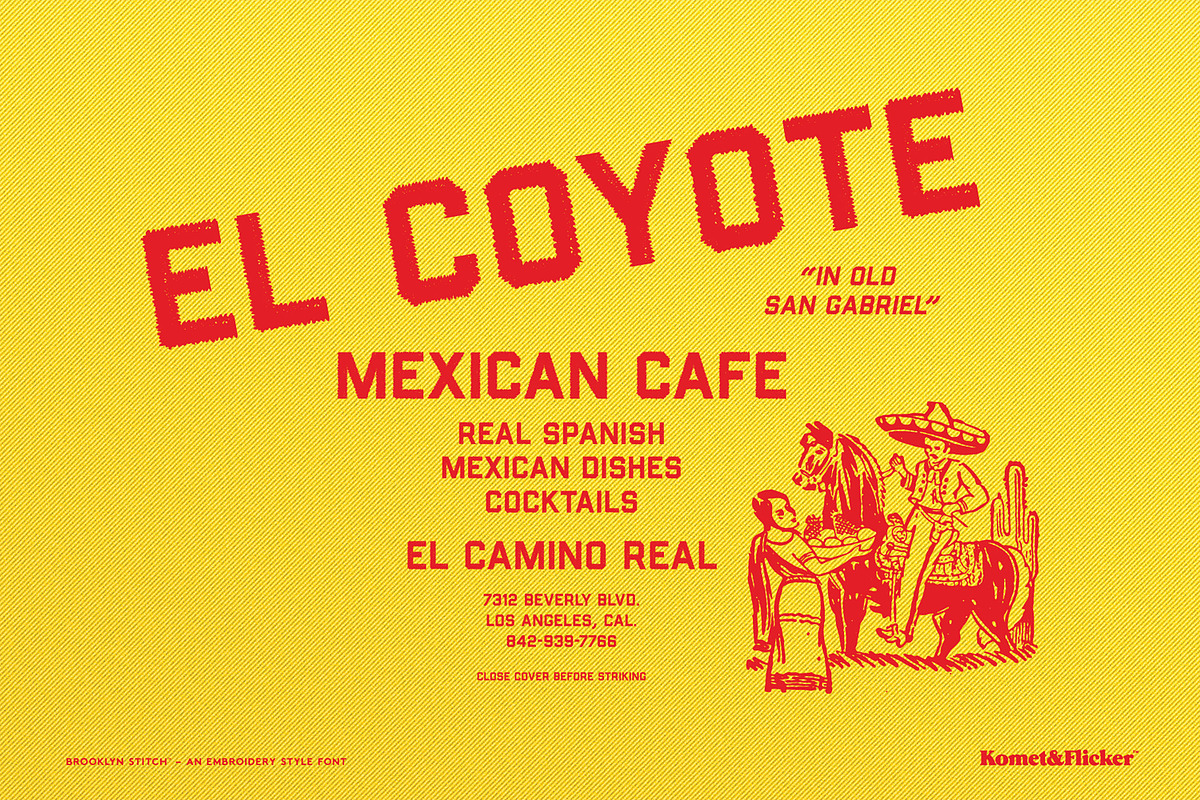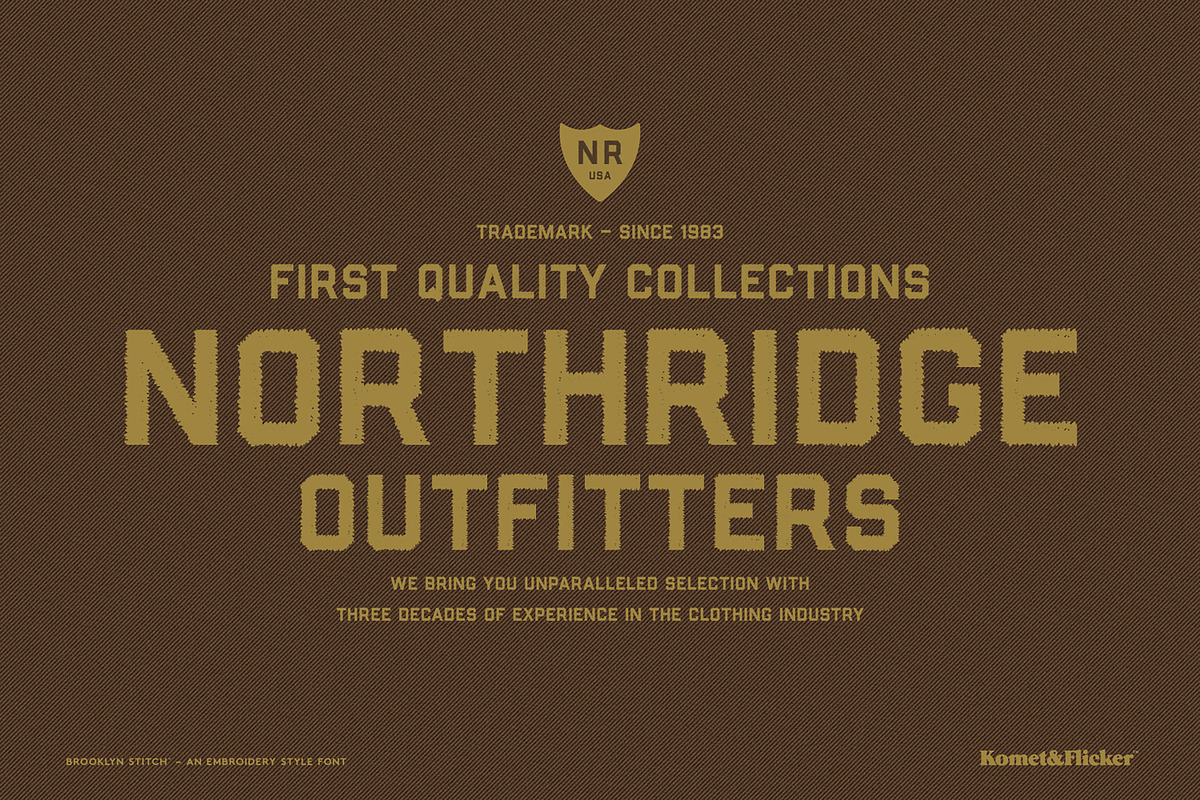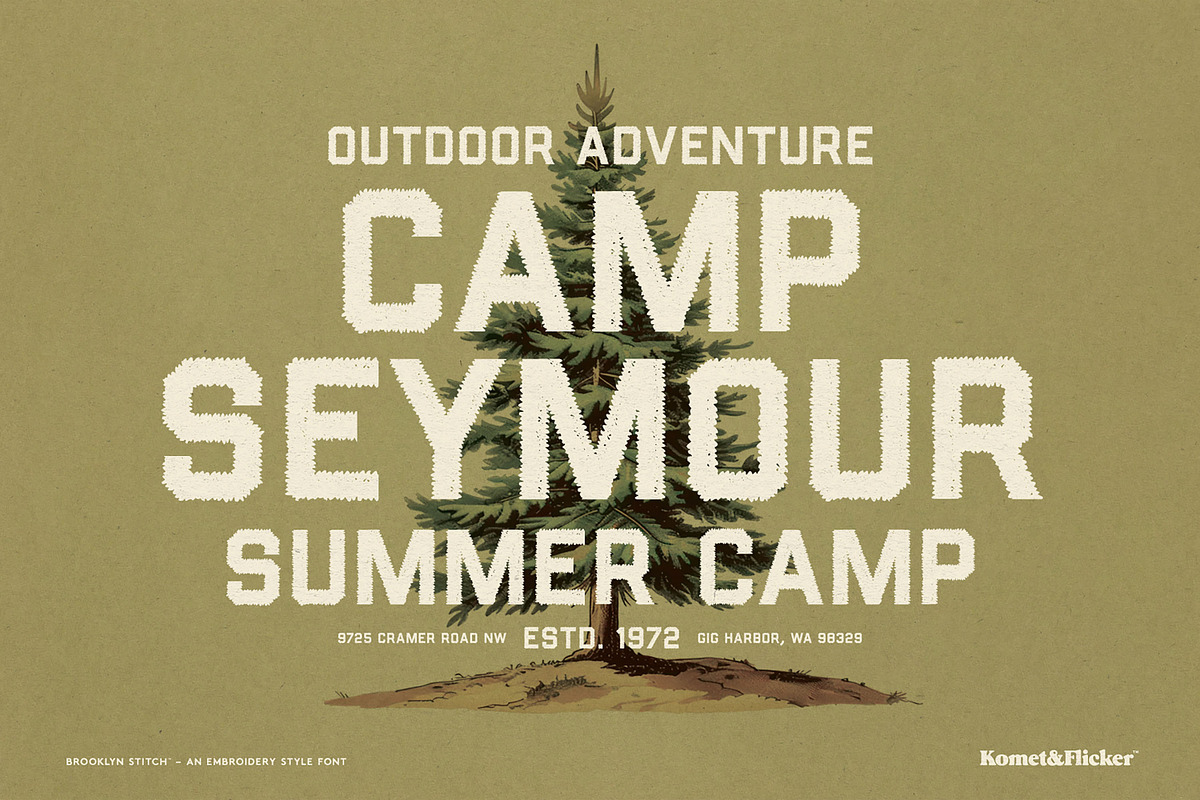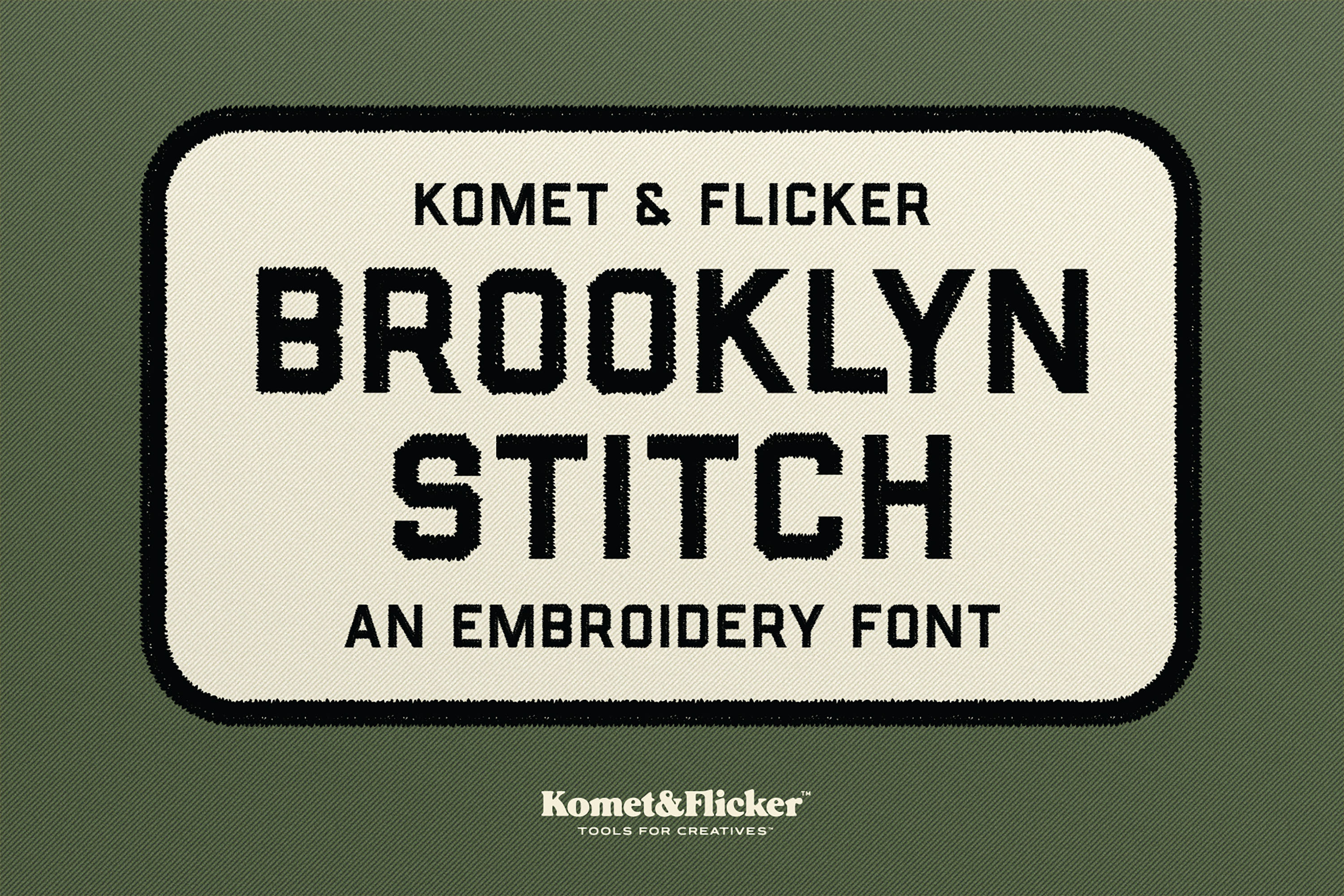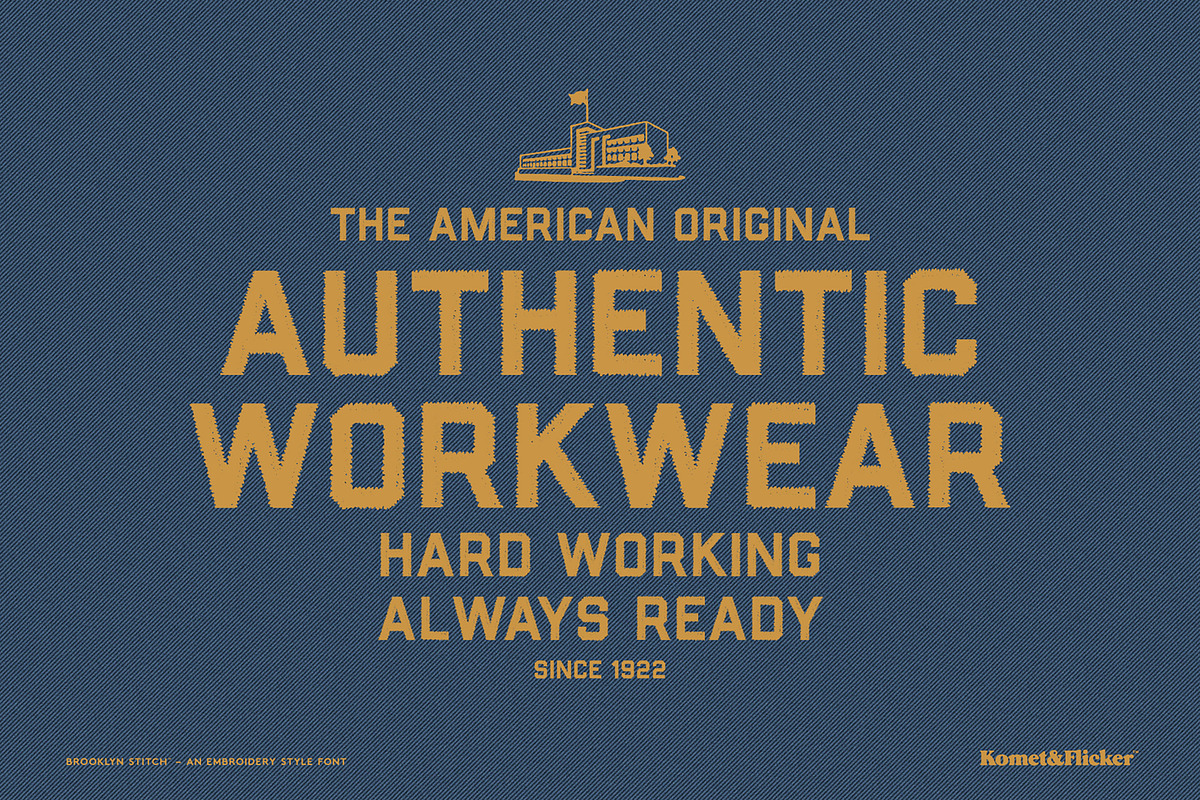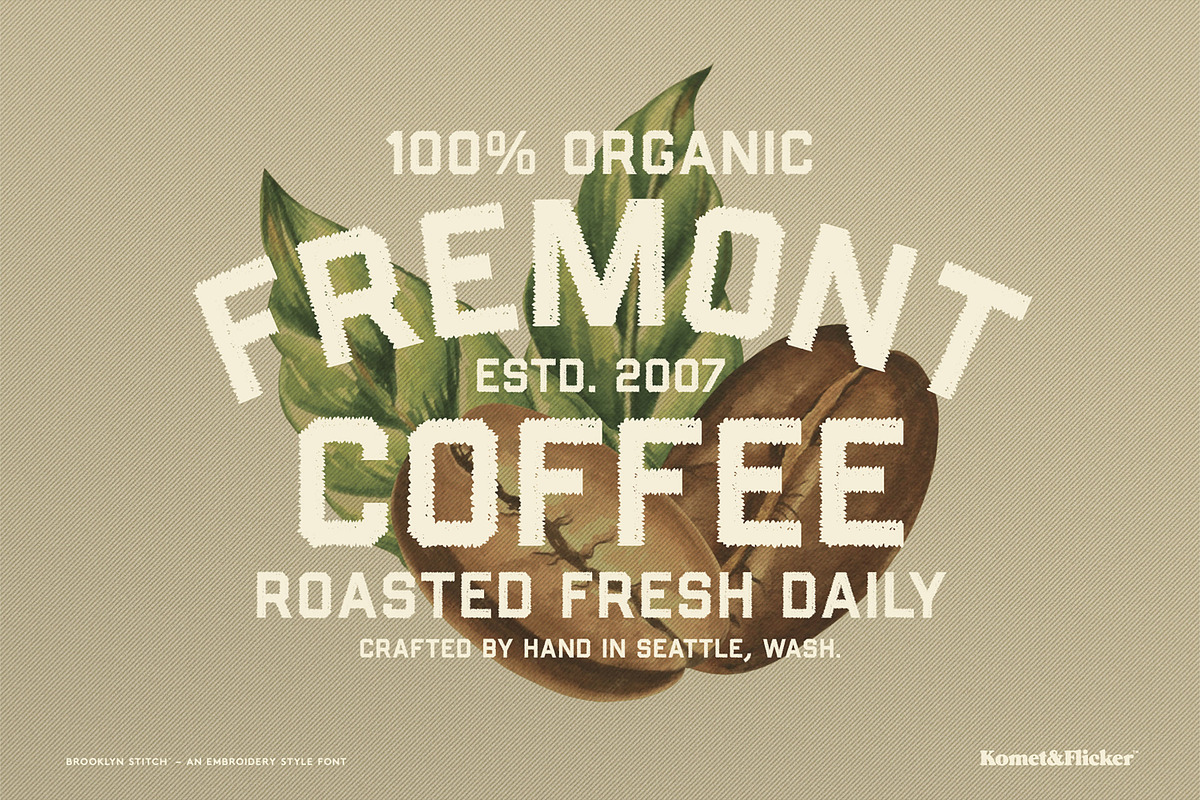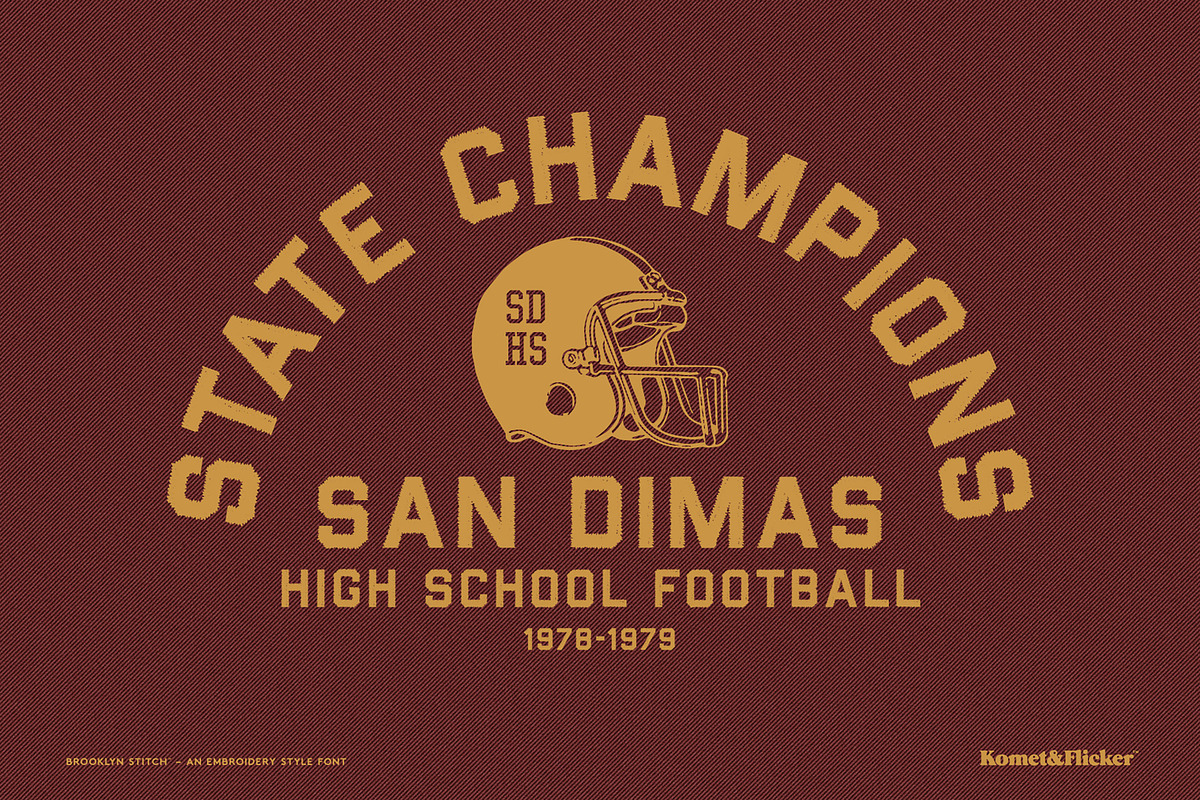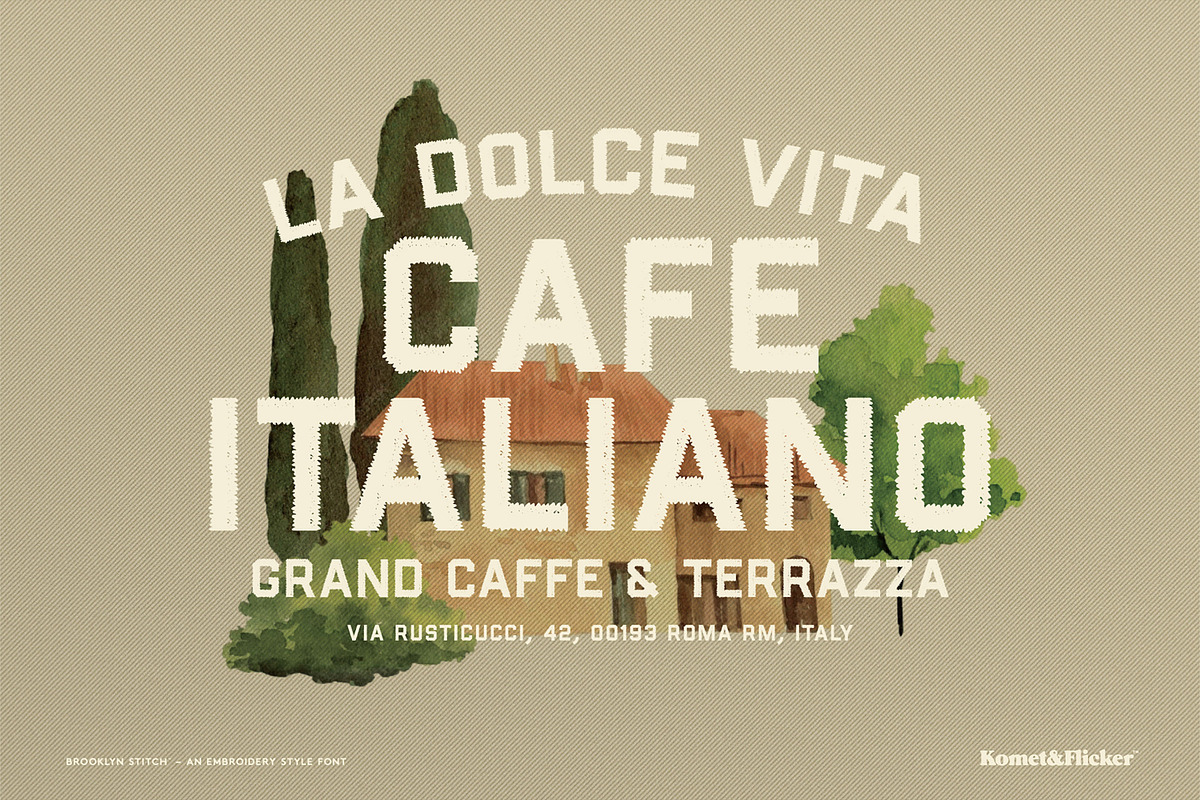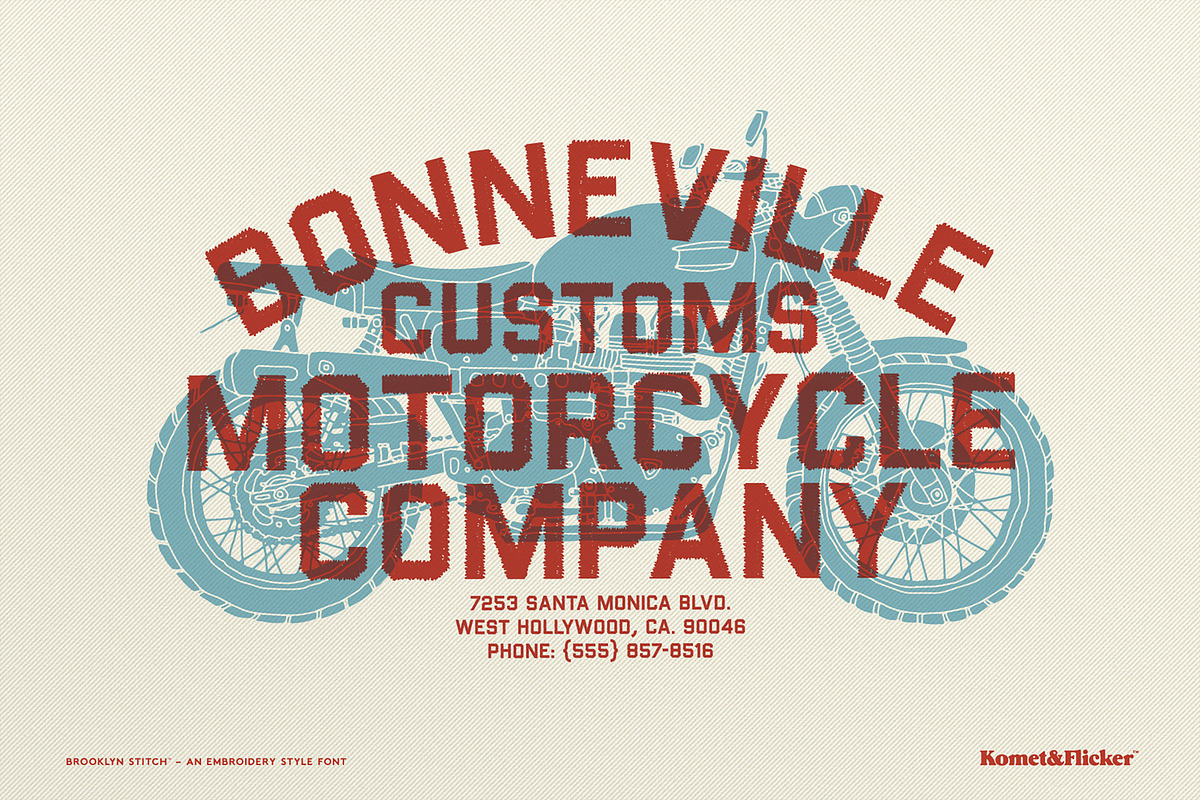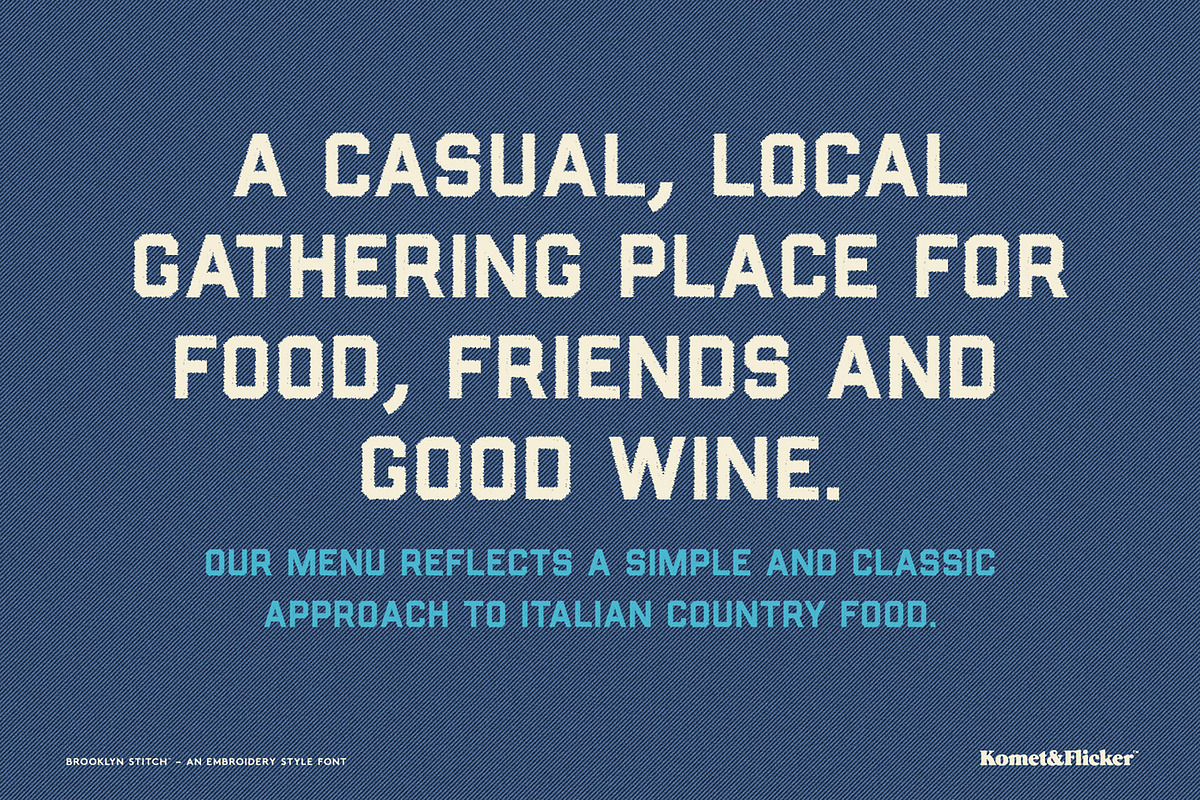
Brooklyn Stitch - An Embroidery Font
Brooklyn Stitch is an all-caps font created to look like embroidery lettering. Inspired by stitched typography and handcrafted details, this font brings the rough warmth and texture of stitched embroidery to your designs all without the needle and thread!
If you’re looking to add character, charm, and a stitched finish to your typography, Brooklyn Stitch delivers the look of embroidery in a clean, easy-to-use all caps font.